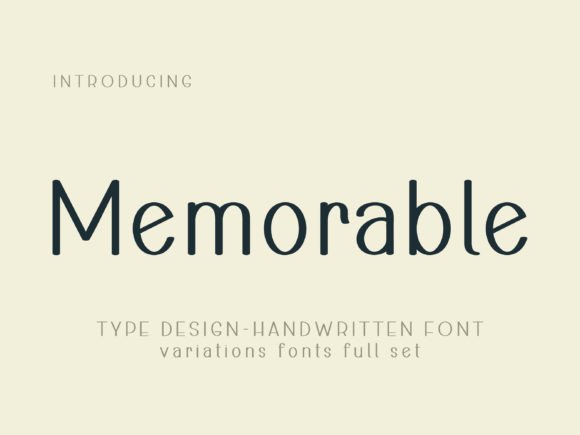
Discover the Charm of Memorable Font: A Sweet and Friendly Handwritten Delight
In the world of typography, fonts play a crucial role in conveying the tone and personality of a design. Among the numerous font styles available, handwritten fonts have gained immense popularity for their unique and personal touch. One such font that has captured the hearts of designers and typography enthusiasts alike is Memorable Font. In this article, we’ll explore the characteristics, uses, and benefits of Memorable Font, and why it’s an excellent choice for your next design project.
What is Memorable Font?
Memorable is a sweet and friendly handwritten font that boasts a natural and unique style. Its effortless charm makes it incredibly fitting for a wide range of designs, from creative projects to commercial applications. The only limit to using Memorable Font is your imagination!
Key Features of Memorable Font
- Handwritten style: Memorable Font has a genuine handwritten look that adds a personal touch to any design.
- Unique character set: The font features a distinctive character set that sets it apart from other handwritten fonts.
- Natural flow: The letters and words flow smoothly, creating a sense of fluidity and elegance.
- Versatile: Memorable Font can be used for a variety of design projects, including logos, branding, packaging, and more.
What Can You Use Memorable Font For?
Memorable Font’s versatility makes it suitable for a wide range of design applications. Here are some ideas to get you started:
- Logos and branding: Create a unique and memorable logo that reflects your brand’s personality.
- Packaging design: Add a personal touch to your product packaging with Memorable Font.
- Posters and flyers: Use Memorable Font to create eye-catching posters and flyers that grab attention.
- Digital marketing: Incorporate Memorable Font into your digital marketing materials, such as social media graphics and email newsletters.
- Wedding and event designs: Add a touch of elegance and sophistication to your wedding or event designs with Memorable Font.
Benefits of Using Memorable Font
So, why choose Memorable Font for your design project? Here are some benefits to consider:
- Stand out from the crowd: Memorable Font’s unique style ensures that your design stands out from the competition.
- Emotional connection: The font’s friendly and approachable nature helps create an emotional connection with your audience.
- Flexibility: Memorable Font can be used for both digital and print applications.
- Ease of use: The font is easy to read and works well in various sizes and resolutions.
Design Tips for Using Memorable Font
To get the most out of Memorable Font, here are some design tips to keep in mind:
- Pair with contrasting fonts: Combine Memorable Font with a contrasting font to create visual interest and hierarchy.
- Experiment with colors: Try out different color schemes to find the perfect match for your design.
- Pay attention to spacing: Ensure that the font is properly spaced to maintain readability and aesthetics.
- Use it sparingly: Use Memorable Font judiciously to avoid overwhelming the design.
In conclusion, Memorable Font is a sweet and friendly handwritten font that offers a unique and natural style. Its versatility, emotional connection, and ease of use make it an excellent choice for a wide range of design projects. By incorporating Memorable Font into your design, you’ll be able to create a lasting impression on your audience. So, what are you waiting for? Unlock your creativity and make your design unforgettable with Memorable Font!